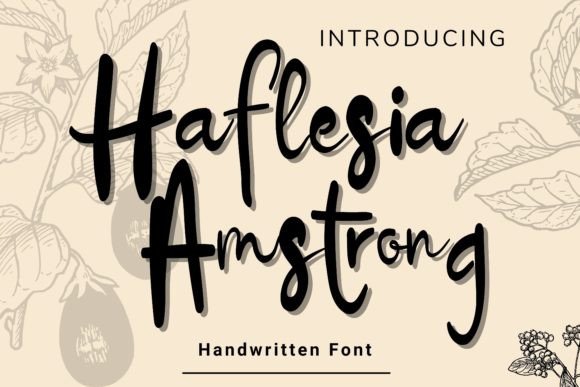
About Haflesia Amstrong Font
Introducing “Haflesia Amstrong,” a bold yet subtle and beautiful handwritten font that captures attention with its combination of bold and thin strokes in every twist. This typeface is crafted to be both striking and aesthetically pleasing, making it suitable for a wide range of design projects and craft applications.
The unique blend of big and thin strokes in “Haflesia Amstrong” gives it a distinctive and captivating look. Whether you’re working on logos, wedding invitations, T-shirts, letterheads, labels, news, posters, badges, or any other creative project, this font adds a touch of boldness and beauty to your text.
Incorporate “Haflesia Amstrong” into your designs and witness how it enhances the overall impact with its bold yet subtle aesthetic. This font is designed to be versatile, making it a great choice for various applications where a beautiful and attention-grabbing typeface is needed.
In summary, “Haflesia Amstrong” is more than just a font; it’s a creative tool designed to bring boldness and beauty to your designs. Download “Haflesia Amstrong” now and explore how it can elevate your logos, wedding invitations, T-shirts, and a wide array of creative projects. With its unique combination of strokes, this font is ready to make a statement in your design endeavors.